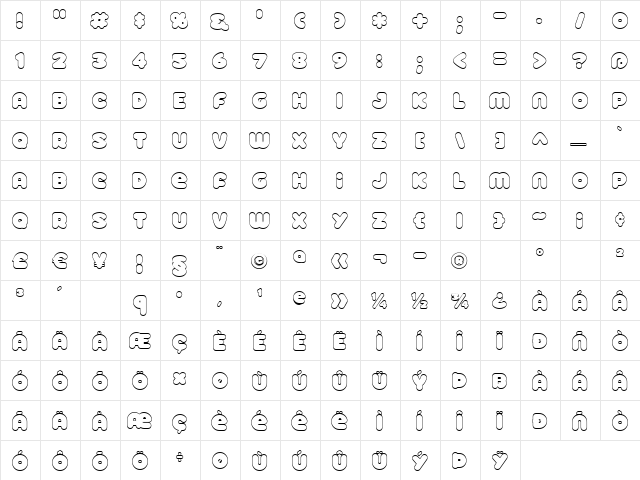
Roller Baby BV Shadow Regular
Design Context for Roller Baby BV Shadow Typeface
Roller Baby BV Shadow is built around its visual character rather than neutral utility — its distinctive forms are designed to make an impression at display sizes.
Font Pairing: Pair with a clean neutral sans-serif for body copy to let Roller Baby BV Shadow's character lead without overwhelming the composition.
Pro Tip: Treat Roller Baby BV Shadow as the centrepiece of your typographic hierarchy. One strong heading set in a decorative face can carry an entire layout.